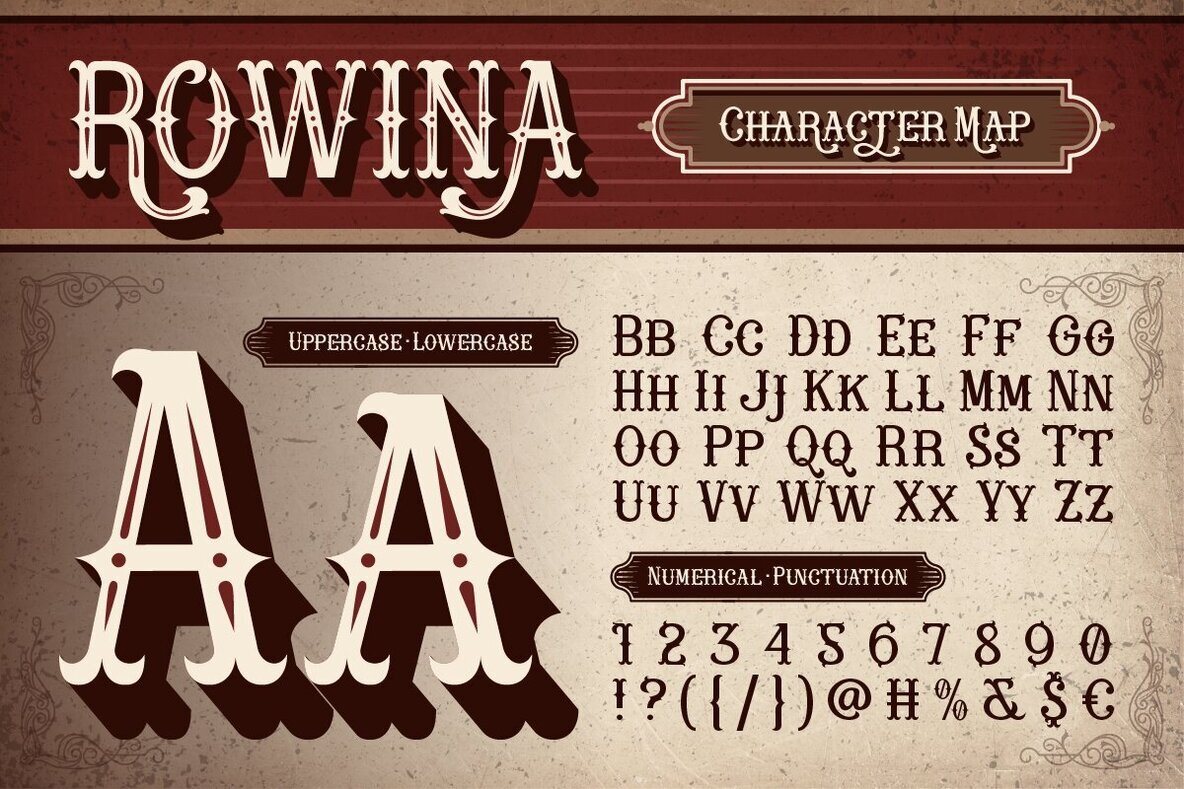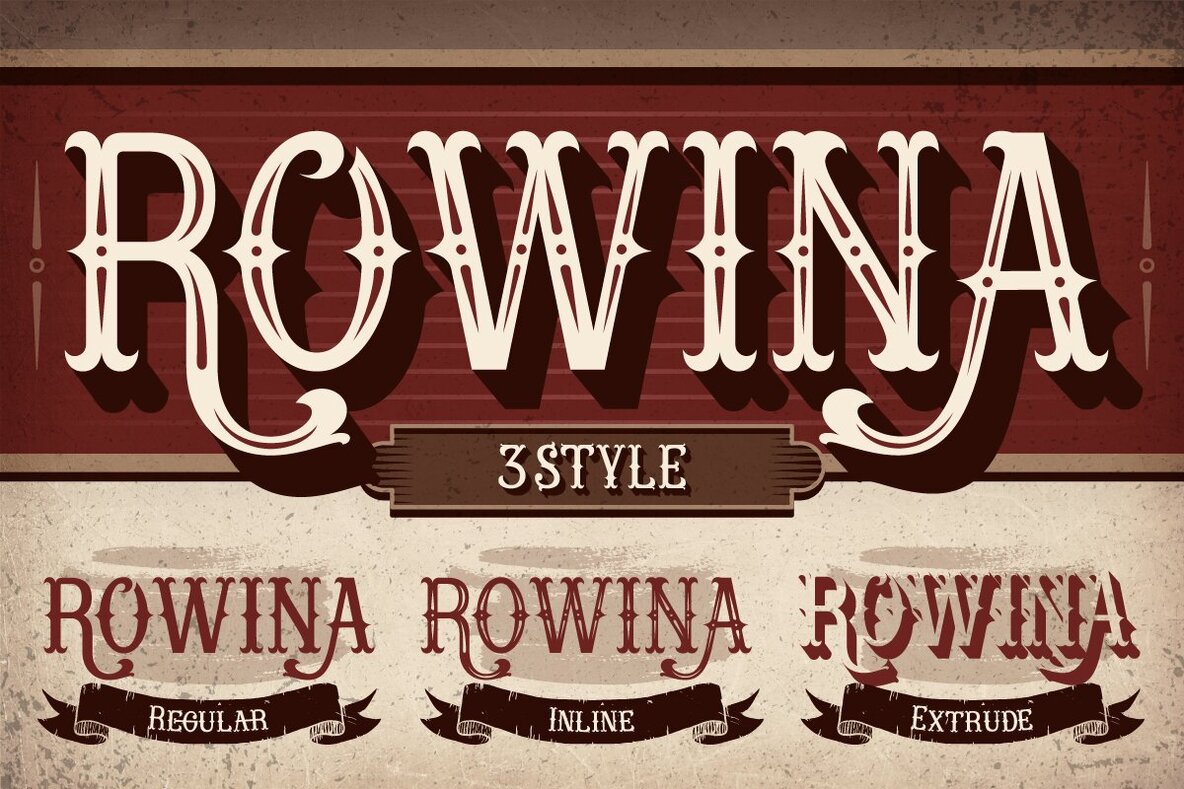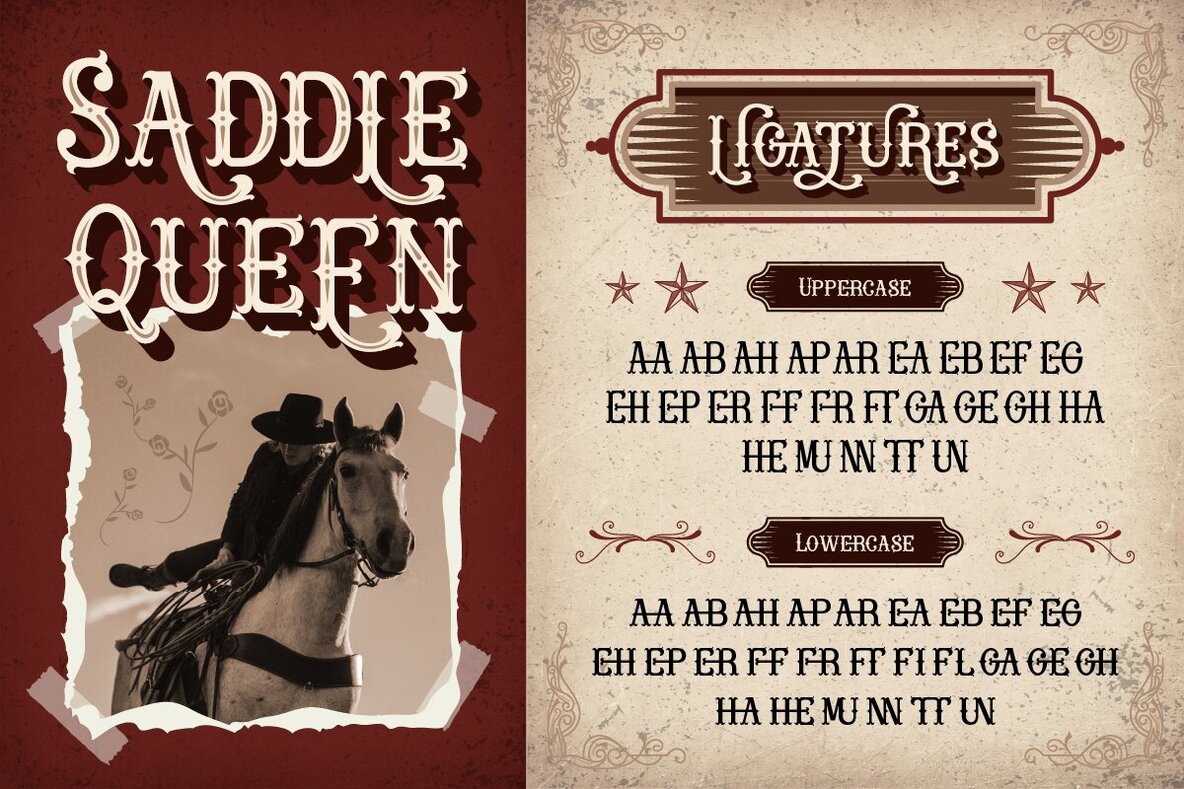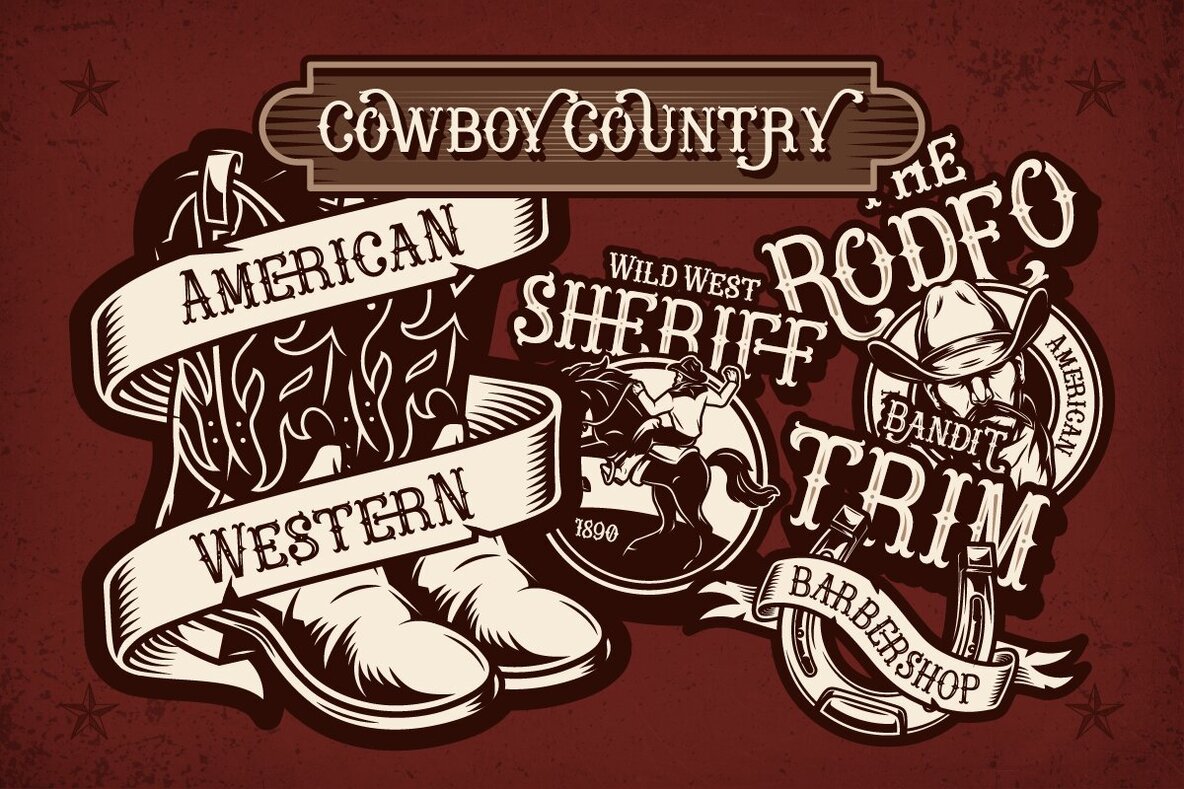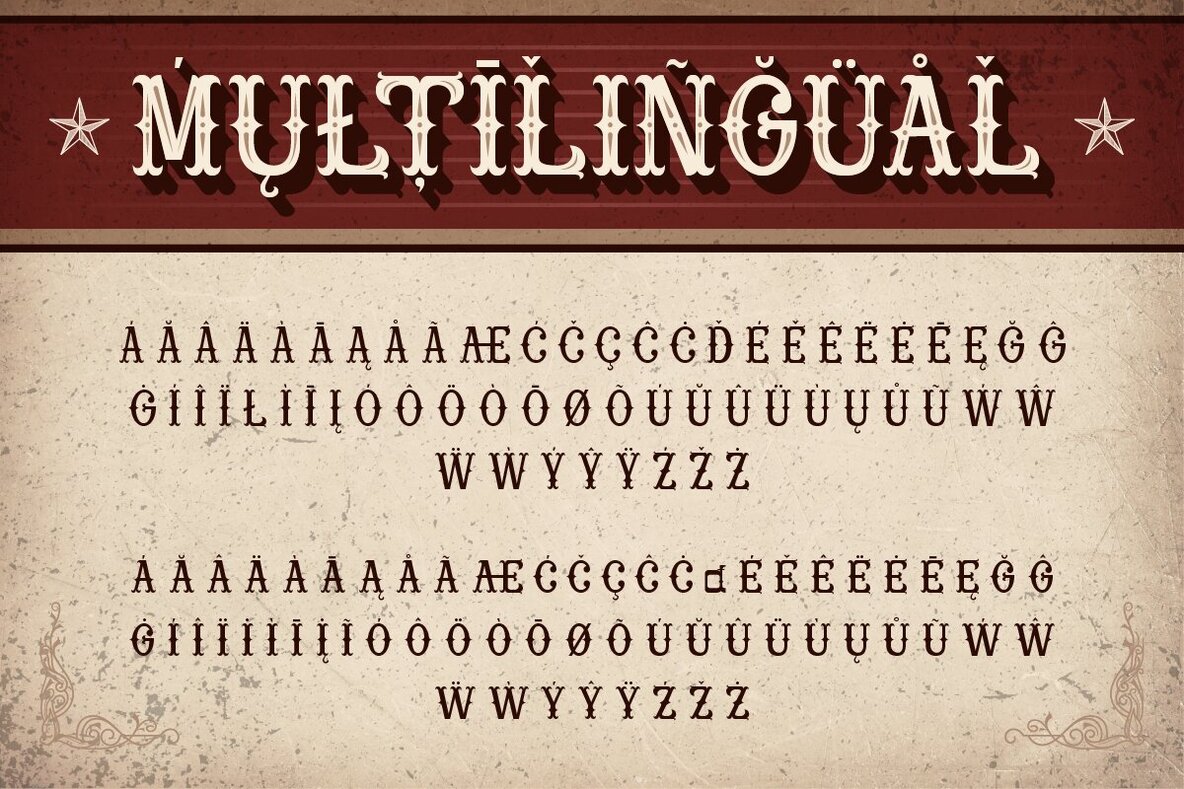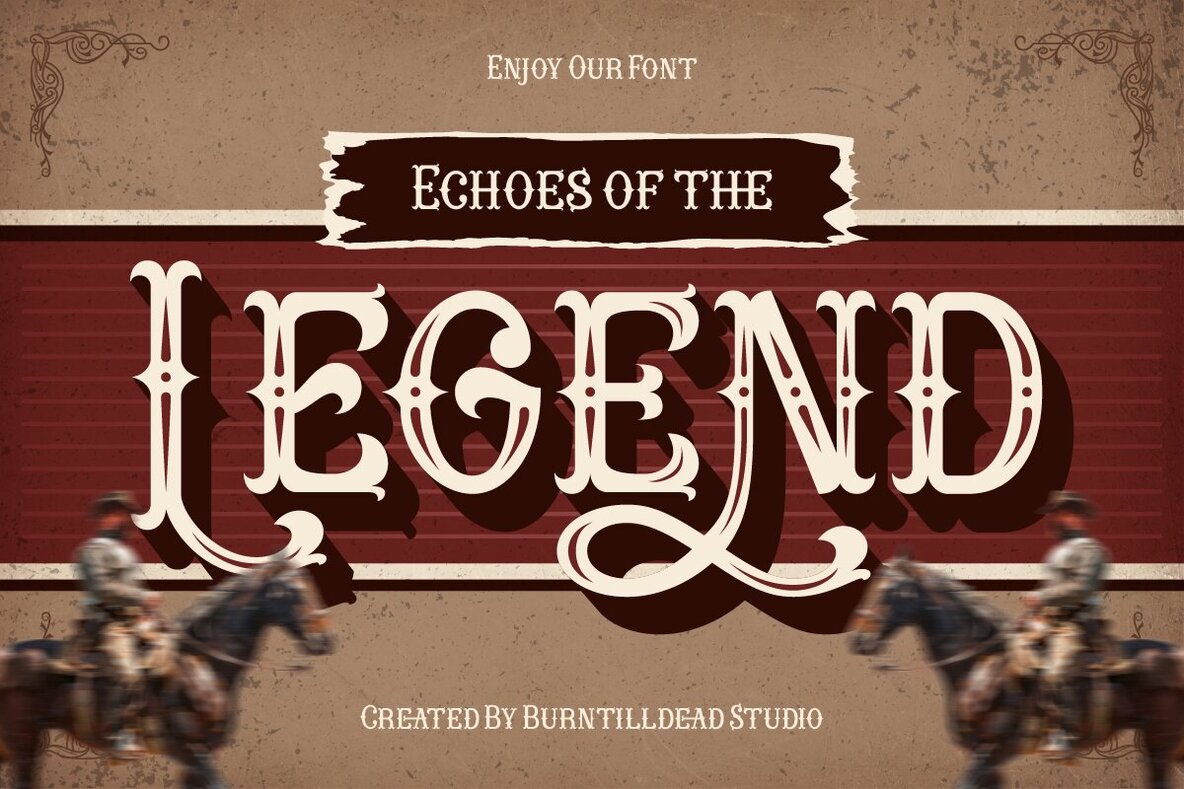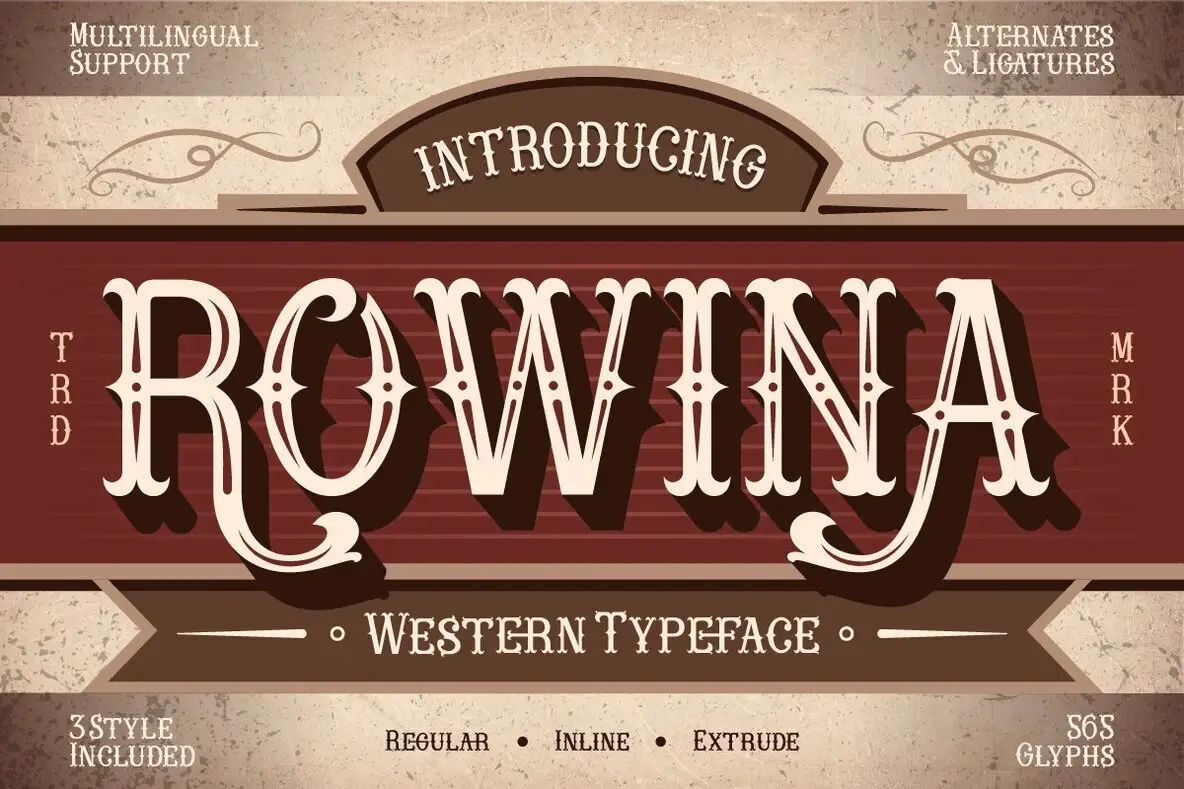
Rowina Font
Rowina Regular
Rowina Extrude
Rowina Inline
Rowina channels the rugged atmosphere of the old West, drawing inspiration from vintage posters, classic cowboy boots, and the weathered signs of frontier saloons. Its bold, authentic style gives your projects a touch of historical grit and timeless charm. This typeface fits seamlessly into whiskey labels, rodeo posters, and rustic café branding. With three versatile styles—Regular, Inline, and Extrude—plus alternates and ligatures, Rowina offers the tools to build multi-layered Western visuals. The font’s aesthetic evokes freedom and a hint of adventure, perfect for designs seeking an unmistakably classic cowboy soul.Rowina – A Western Typeface with Vintage Character